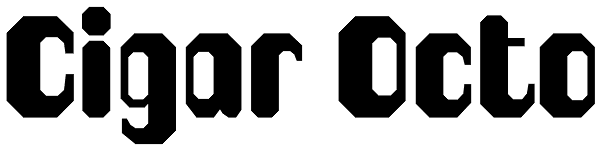
Cigar
Cigar is a revival of a 1970s and 1980s typeface called Cucumber or Nassel Black or Scanner. It has been carefully redrawn and expanded into a full-featured OpenType font. Cigar Octo and Cigar Quarto are new angular reinterpretations of Cigar. In...
Cigar
Cigar Octo
Cigar Quarto